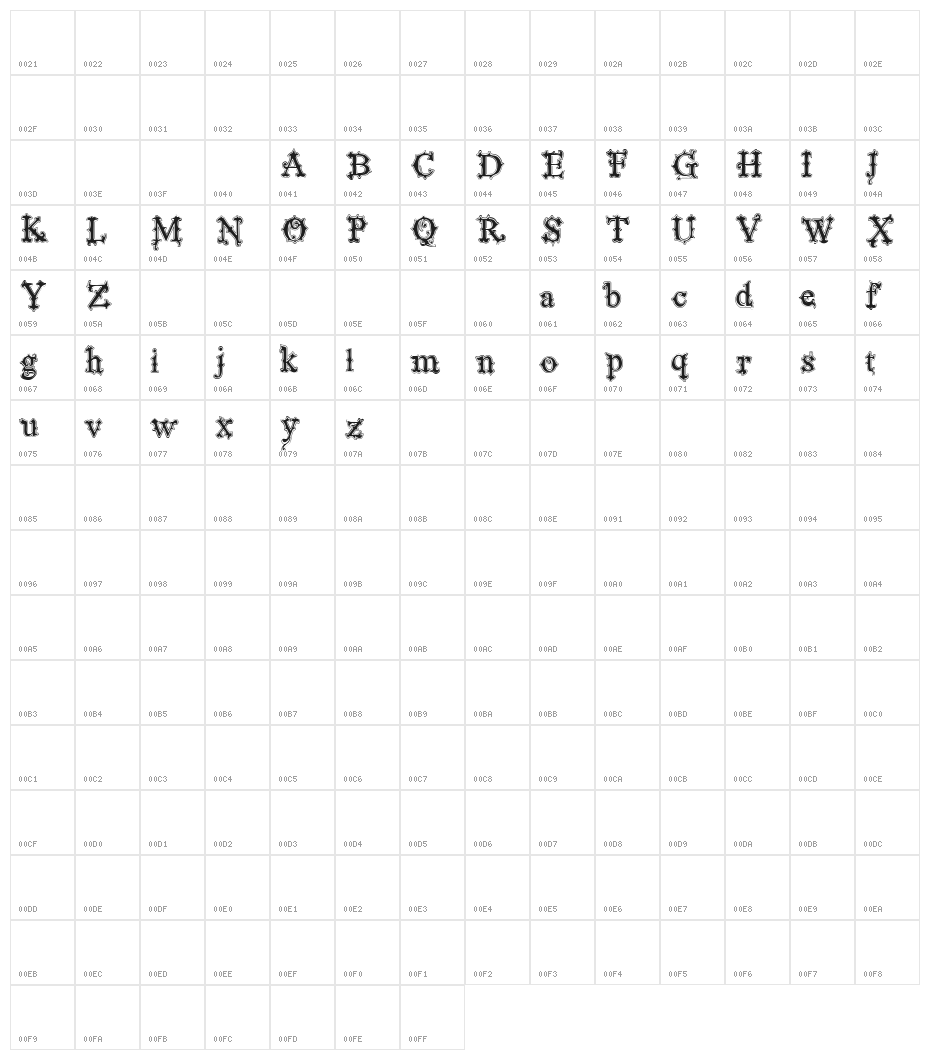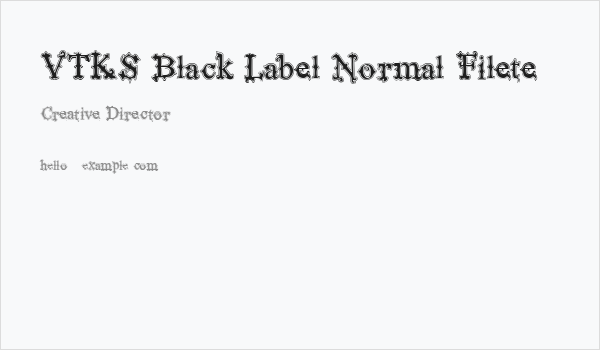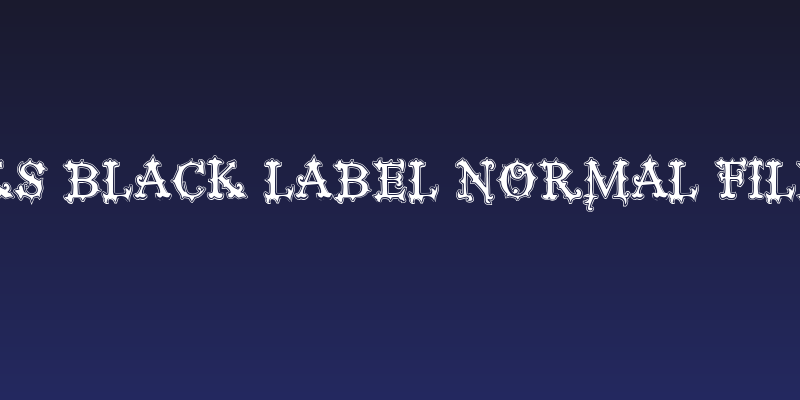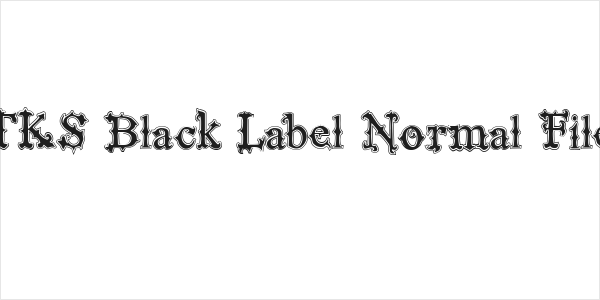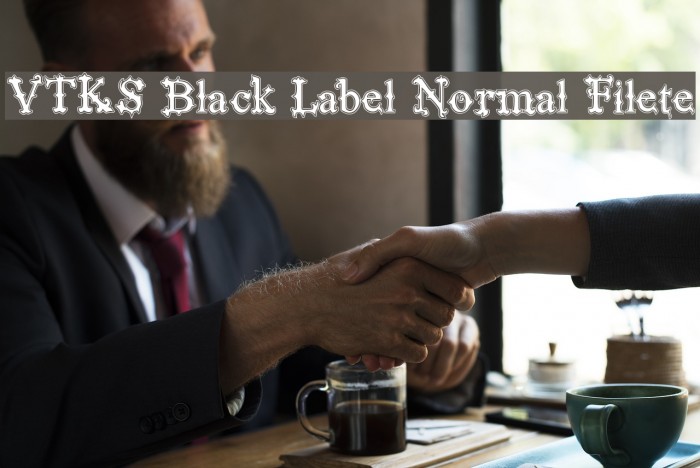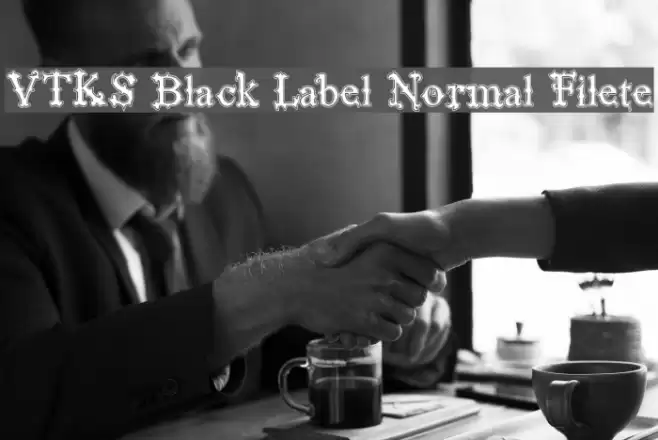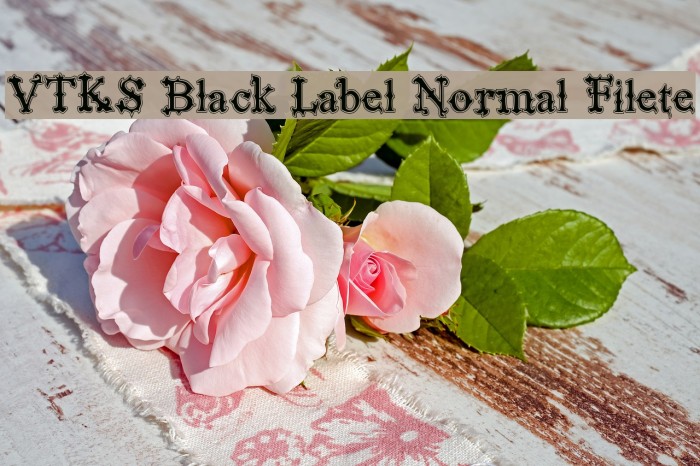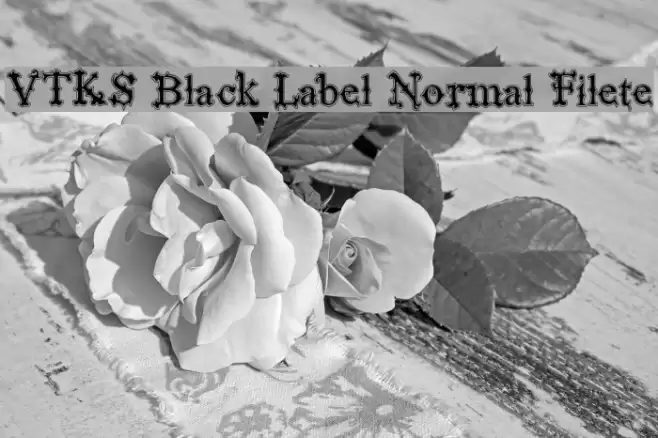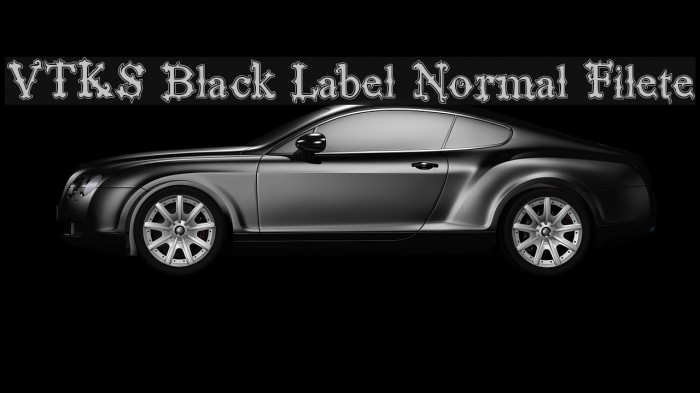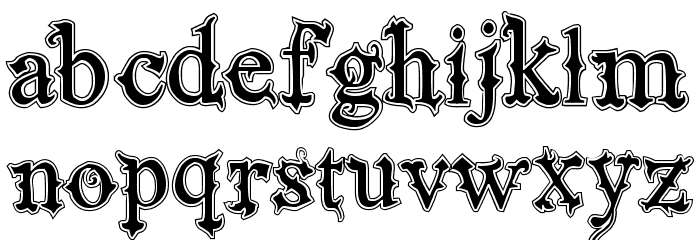
VTKS Black Label Normal Filete Font
| Gesamtstil | Vintage |
| Vorgeschlagene Projekte | Ideal for projects that require a dramatic and eye-catching typeface, such as event posters, album covers, or branding for vintage-themed businesses. |